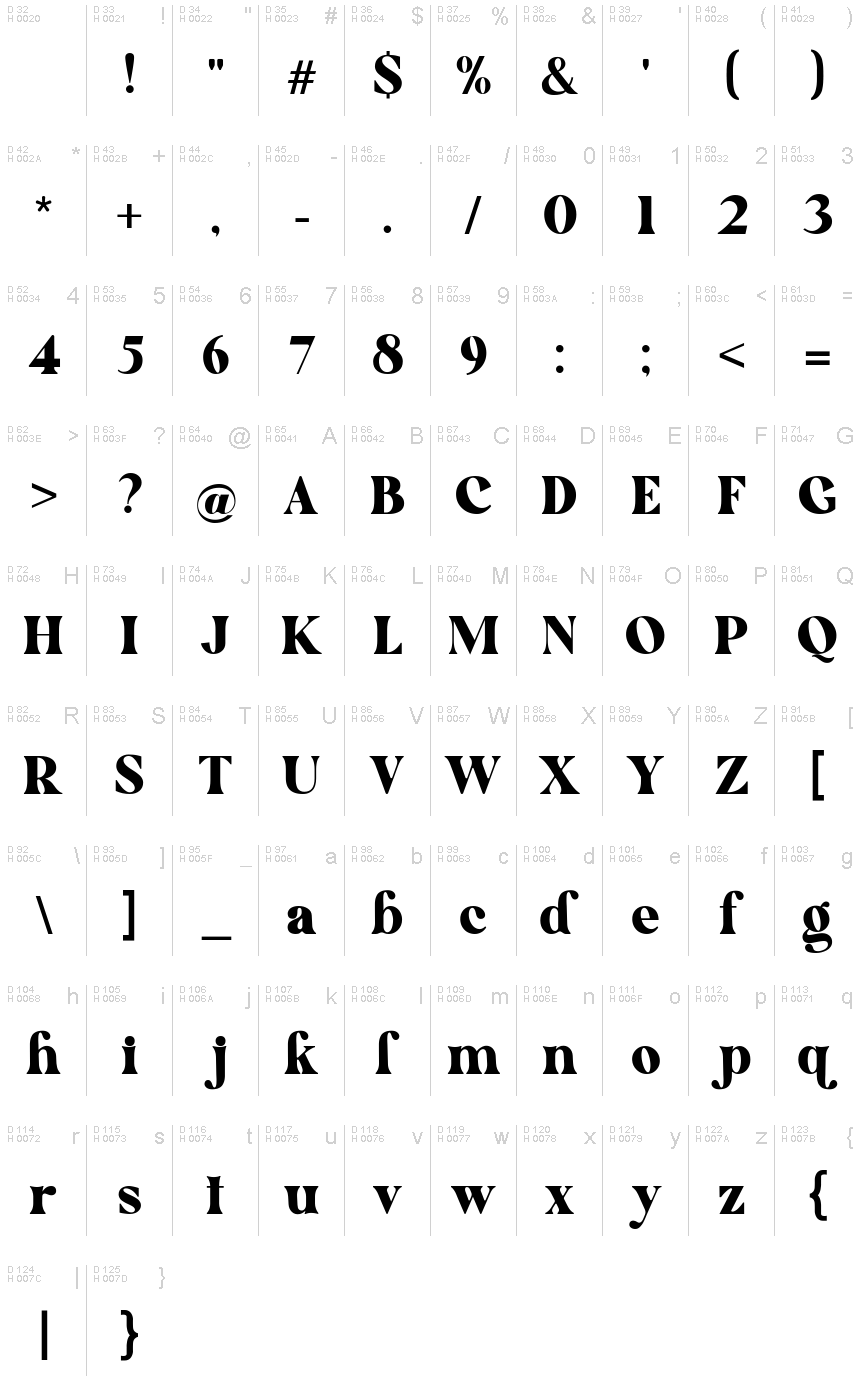
Quick Peachy
Quick Peachy by UI Creative is a bold display font that exudes a captivating retro charm. Its prominent weight commands attention, making it ideal for headlines and eye-catching designs. The distinctively playful curves and nostalgic flair evoke a sense of vintage elegance, perfect for projects that seek to blend past and present aesthetics.
This font shines in branding, poster design, and any creative endeavor requiring a touch of classic sophistication with a modern twist. Quick Peachy's unique style ensures that your message stands out with an unforgettable visual impact.